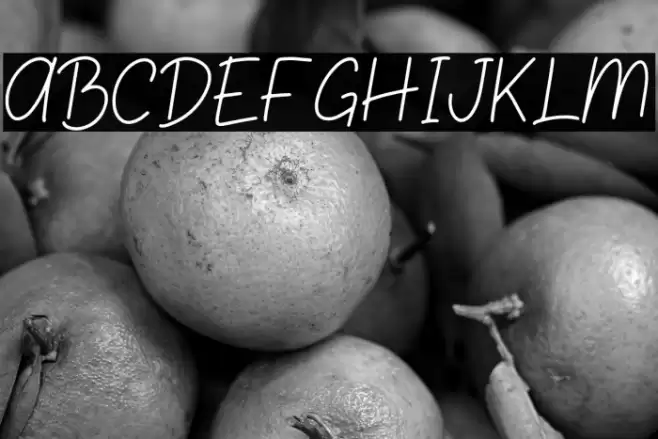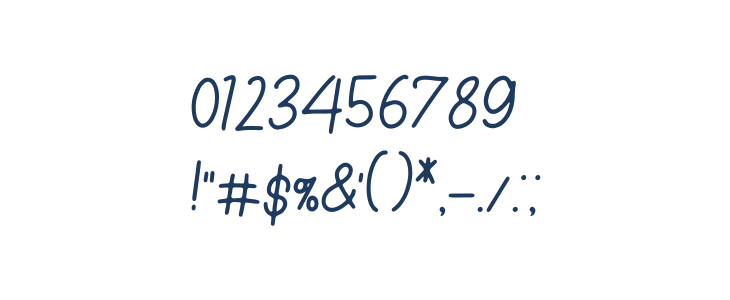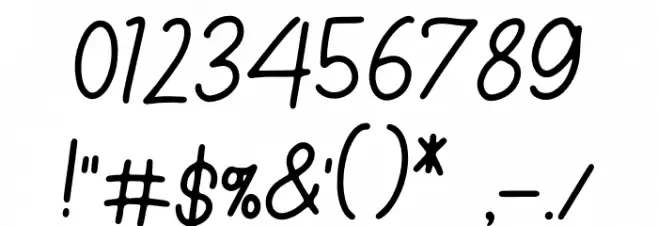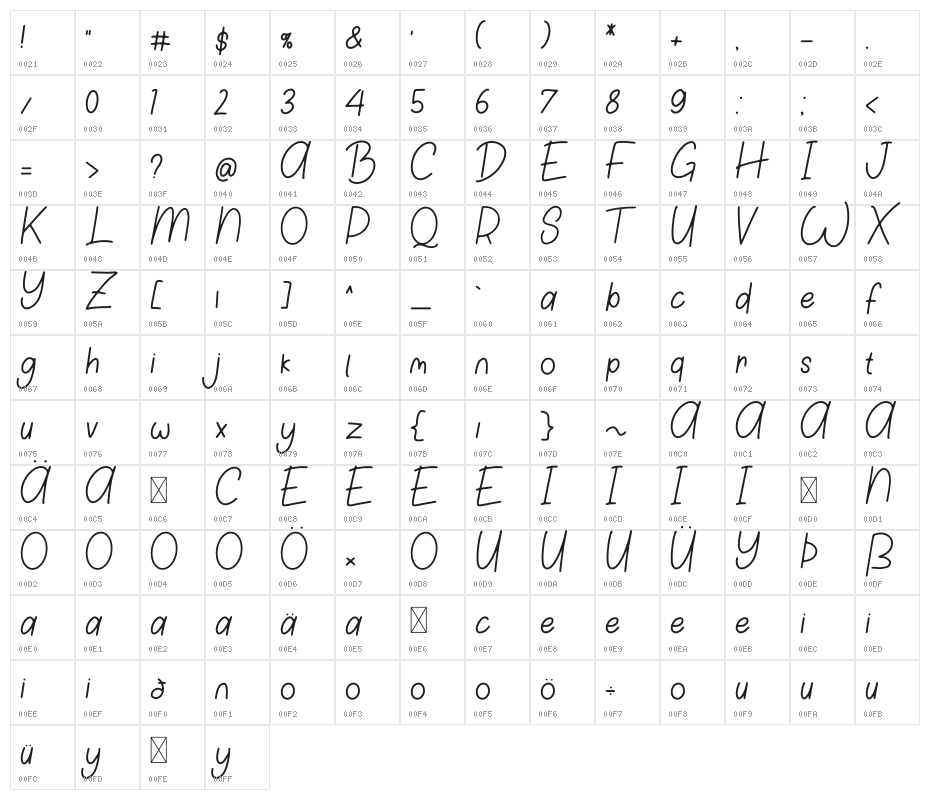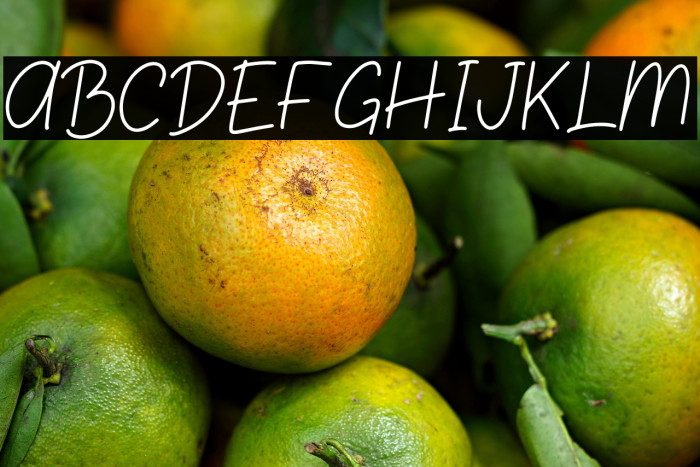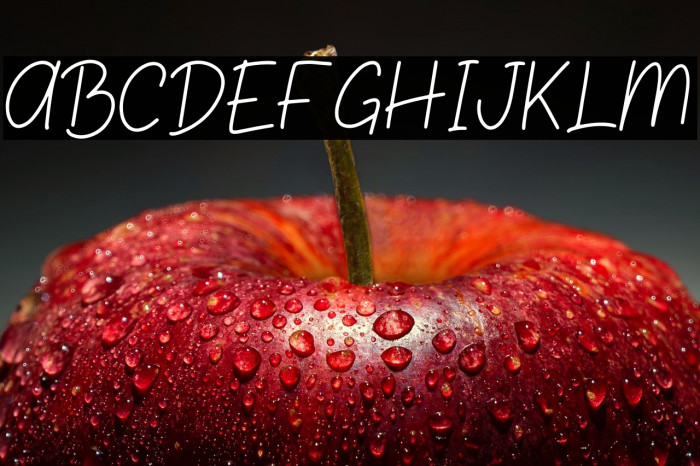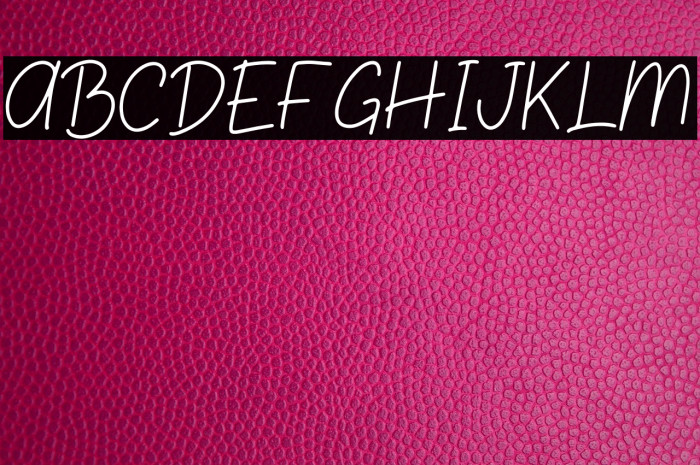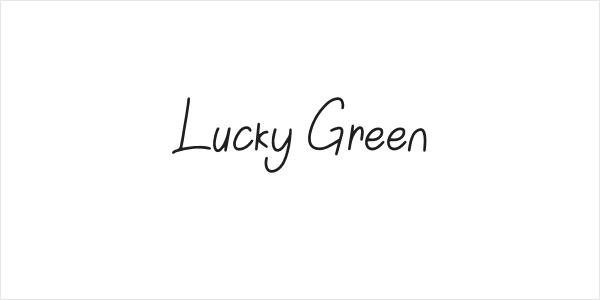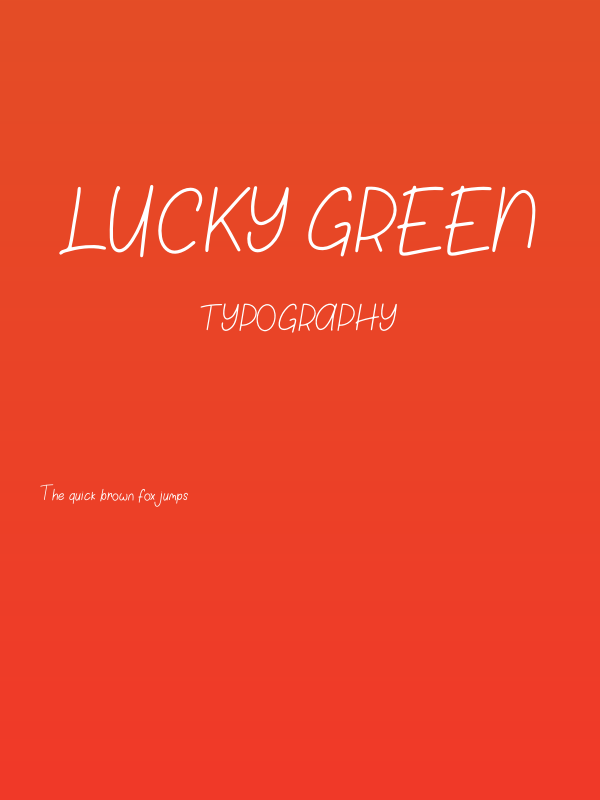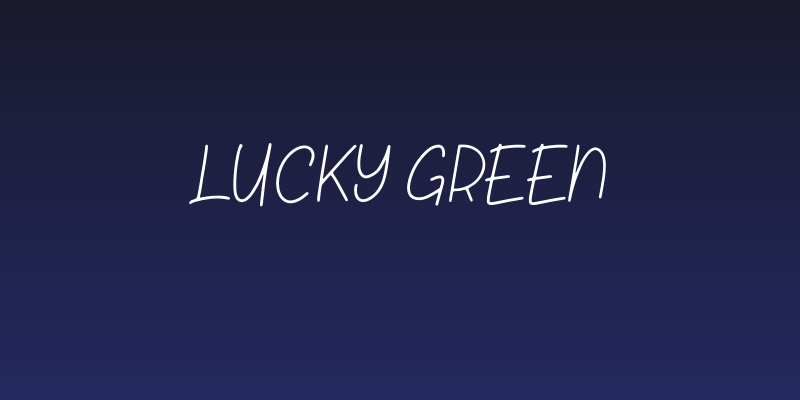
Lucky Green Font
Lucky Green Description
This font features a playful and casual handwritten style, characterized by its smooth, flowing lines and slightly irregular shapes that mimic natural handwriting. The uppercase letters are tall and slender, while the lowercase letters maintain a consistent height, adding to the font's approachable and friendly appearance. The numerals are rounded and easy to read, complementing the overall informal aesthetic. Special characters are well-integrated, maintaining the same casual style. This font's design is ideal for projects that require a personal touch, conveying warmth and approachability.
A playful, casual handwritten font with smooth, flowing lines from Uncategorized fonts.
- Font: Lucky Green
- Proposed Projects: Ideal for greeting cards, personal invitations, casual branding, and social media graphics.
- Overall Style: Casual
- Use Case: Headlines, Logos, Informal Text